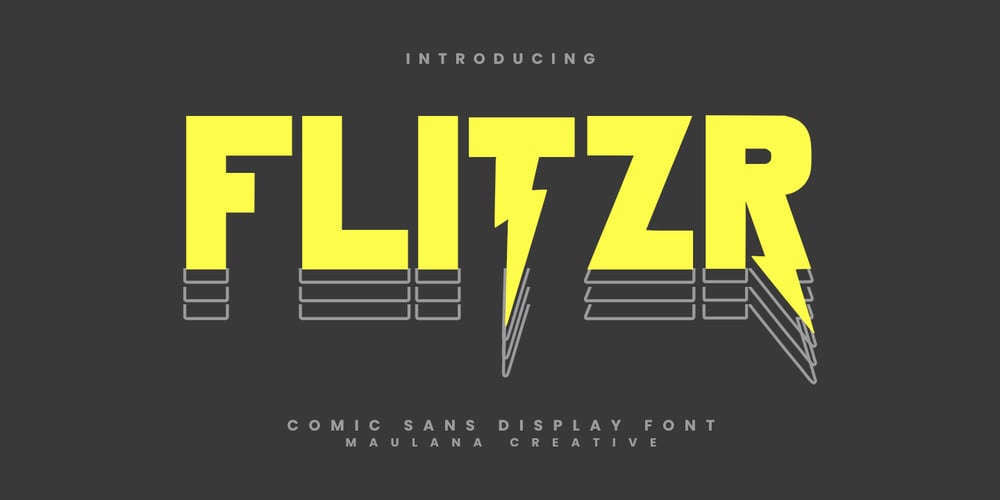
MC Flitzr Font Family was designed by Gilang Maulana and published by Maulana Creative. MC Flitzr contains 1 styles and family package options. Flitzr flash comic sans display font. With bold tall and sharp stroke, fun character with a bit of ligatures and alternates. To give you an extra creative work. Flitzr flash comic sans display font support multilingual more than 100+ language. This font is good for logo design, Social media, Movie Titles, Books Titles, a short text even a long text letter and good for your secondary text font with sans or serif. Make a stunning work with Flitzr flash comic sans display font.Cheers,Maulana Creative